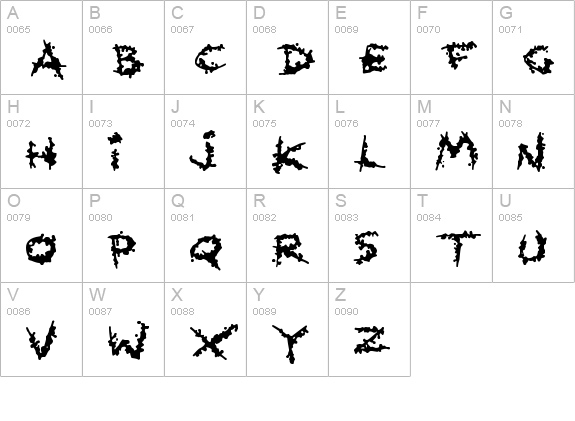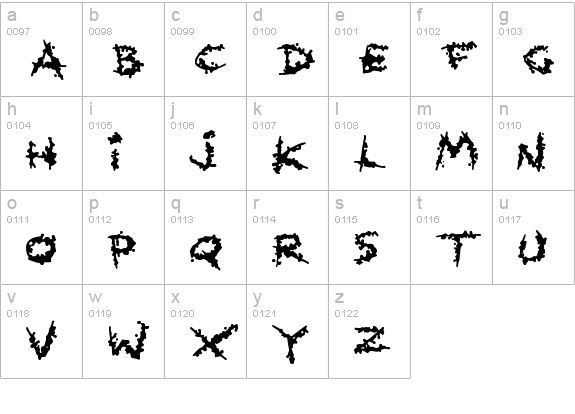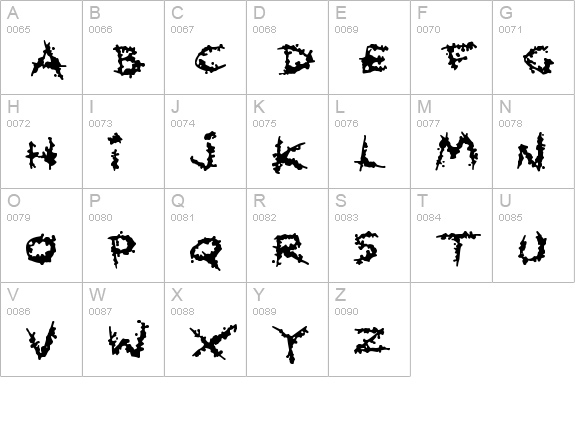
Splatlings Font Details
Splatlings is a free for personal use font in the Script category, designed by Darrell Flood. It has been downloaded 10 times and is available for Windows, Mac and Linux.
Splatlings font is a whimsical and playful typeface that is sure to add a burst of creativity to any design project. With its unique splattered design, this font exudes a sense of fun and spontaneity. Perfect for projects that require a touch of energy and originality, Splatlings font is versatile and eye-catching.